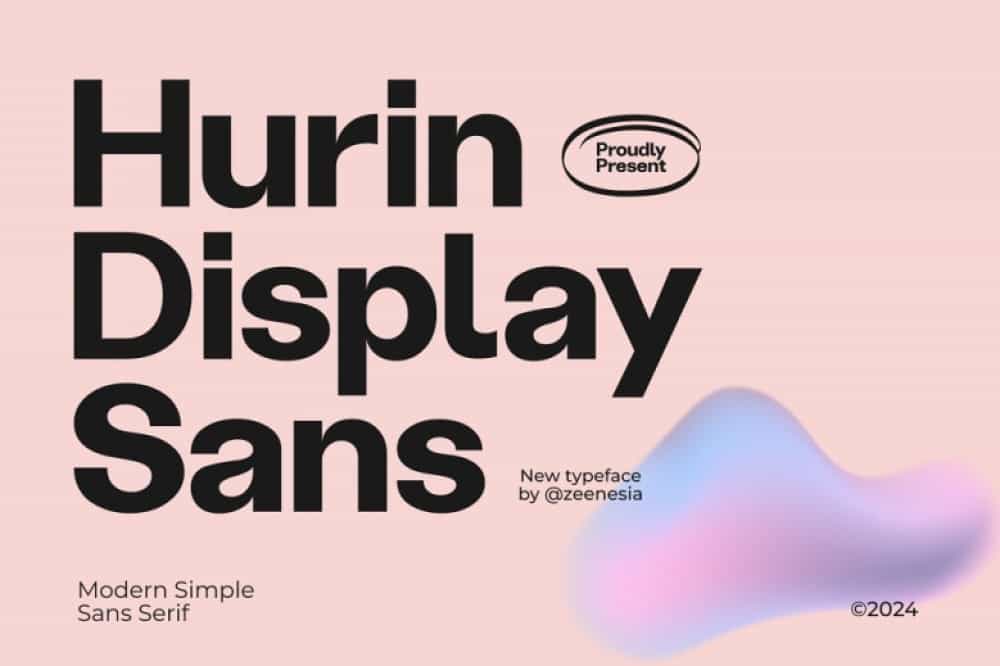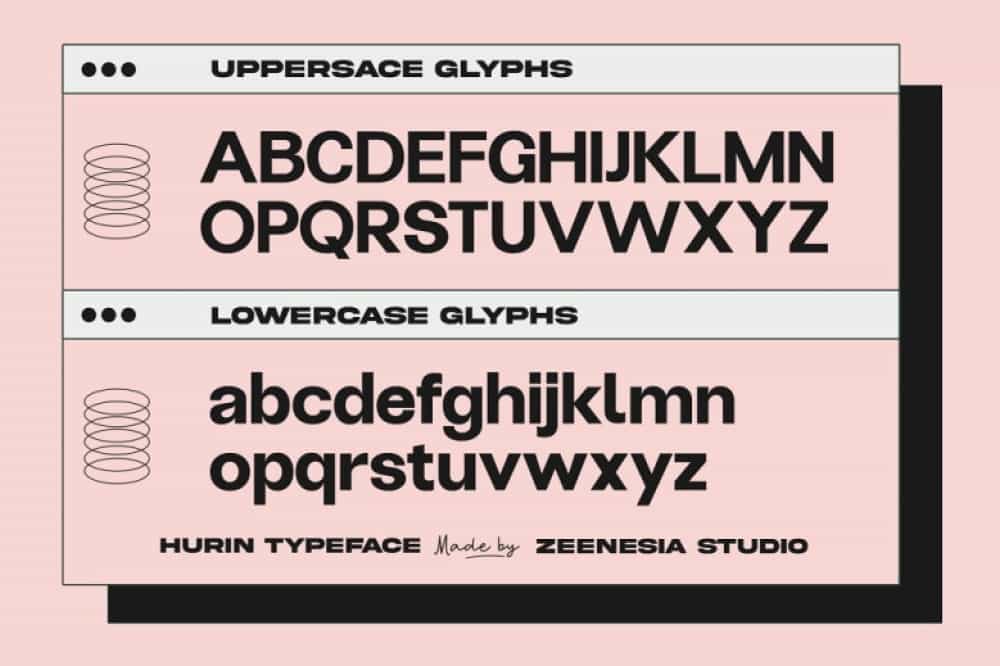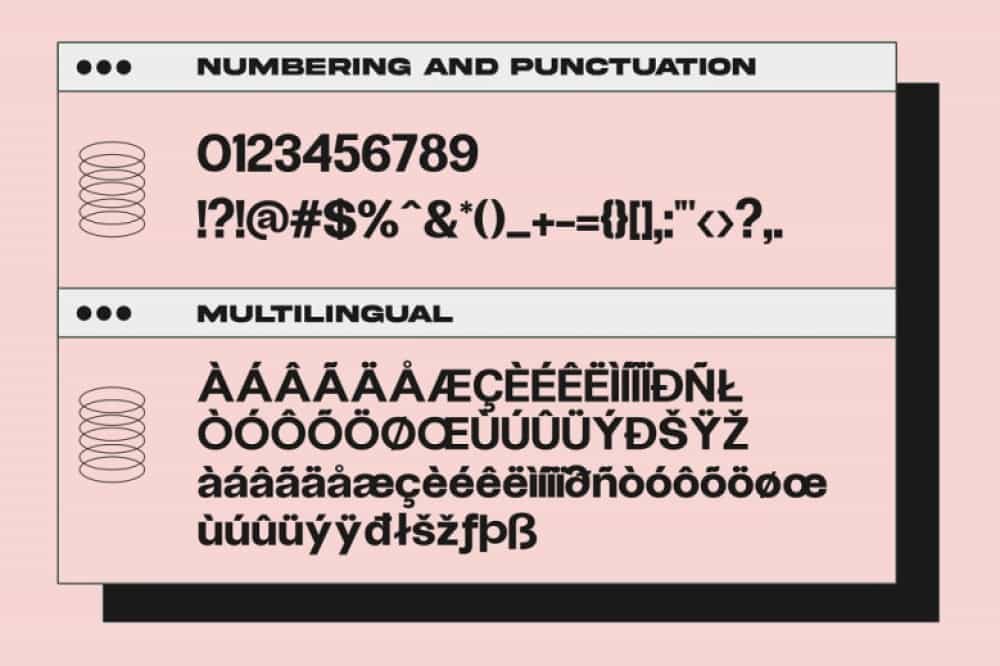
Hurin is an elegant sans serif font that signifies the principles of today’s design world with simplicity. Smooth lines of Hurin’s own sans-serif style introduce your work, adding a touch of grace and stylishness to the ordinary text that catches the eye and draws the viewer in.